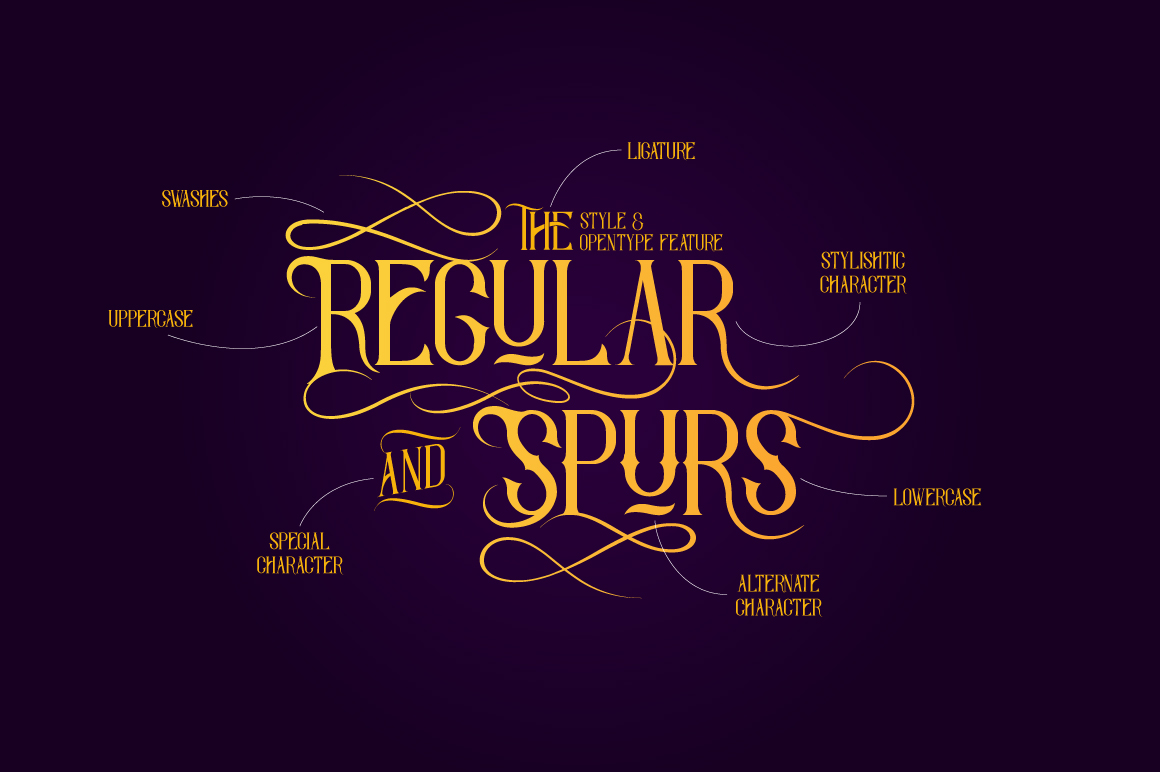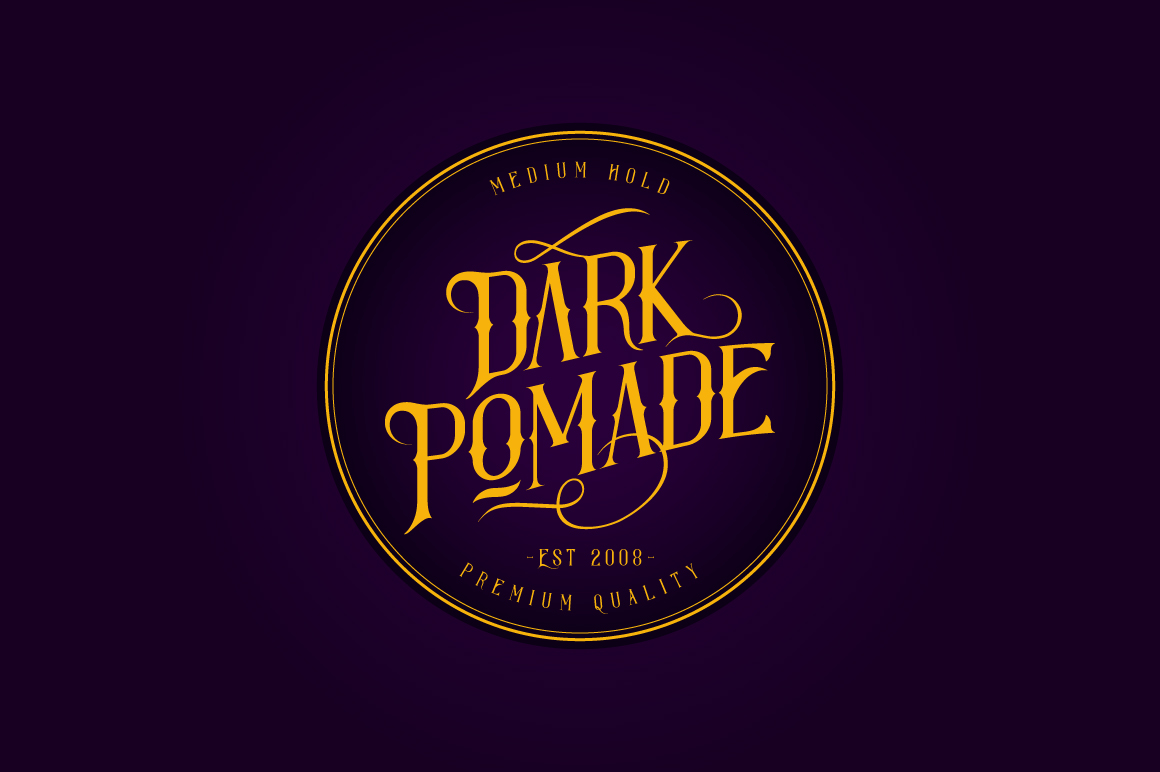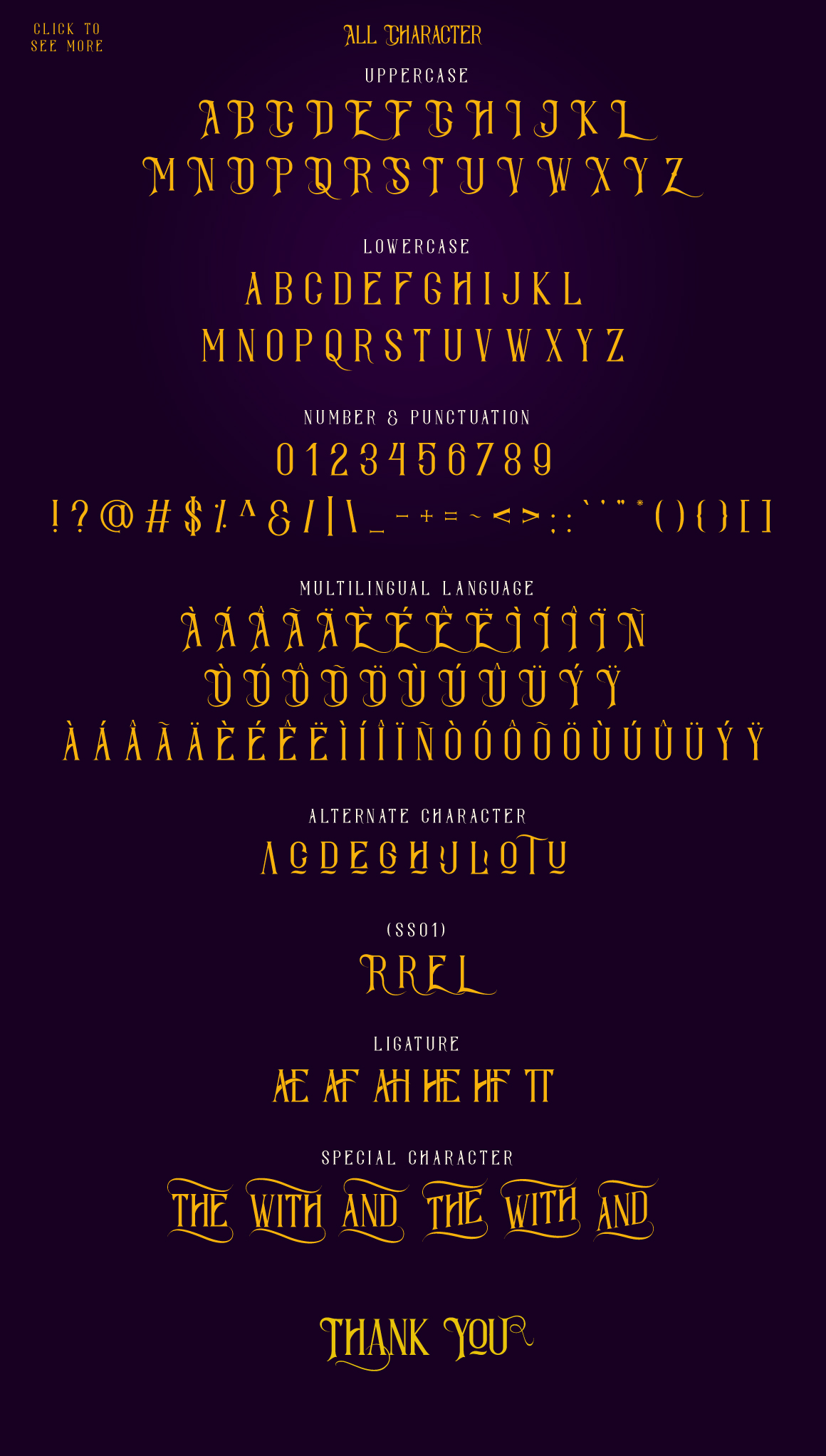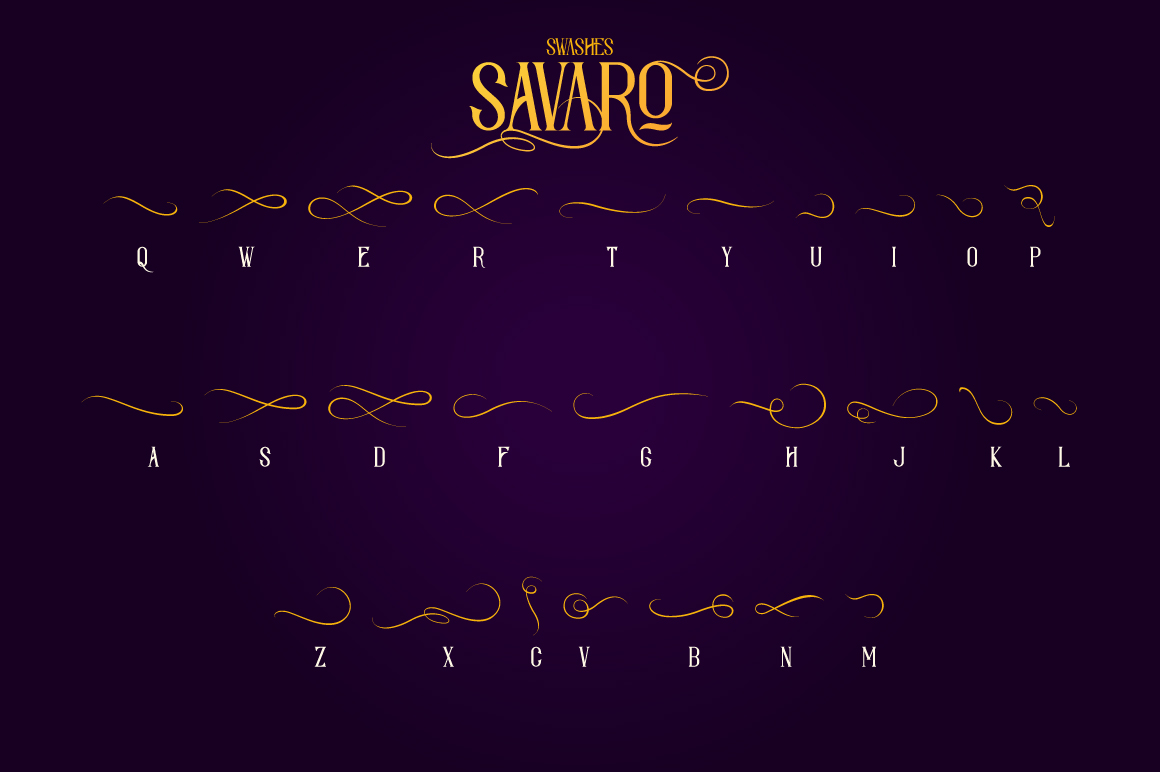
Savaro Font
Savaro is a jaw droppingly gorgeous caps font. Elegantly styled and with different style sets, this font can add a retro edge to your designs or type-based creative projects.